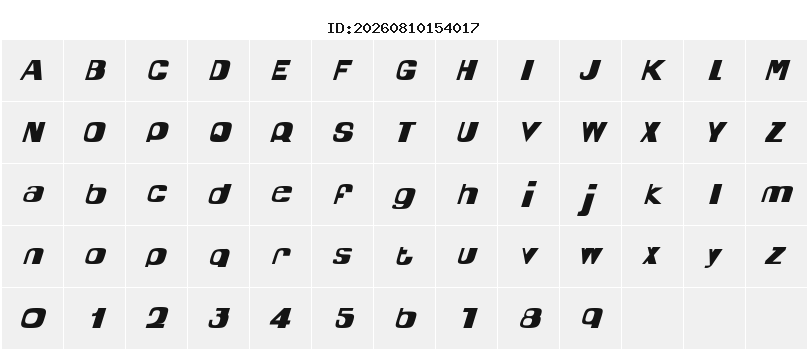
• Font Name: Quel
• Full Font Name: Quel
• PostScript Name: Quel
About Quel.ttf
Quel.ttf is a modern, elegant sans-serif font designed for ultimate readability and visual harmony. Perfect for branding, headlines, web design, and print materials.